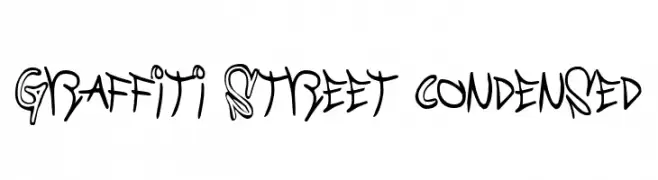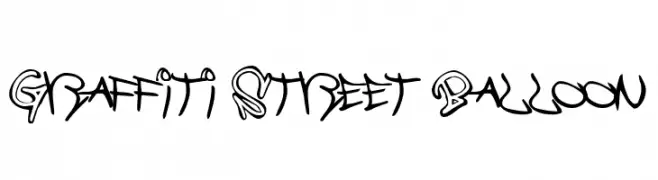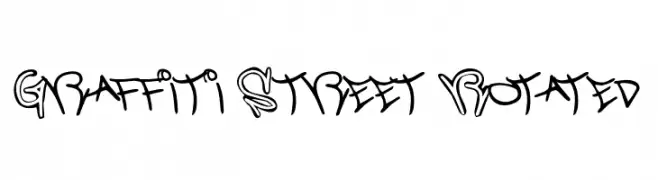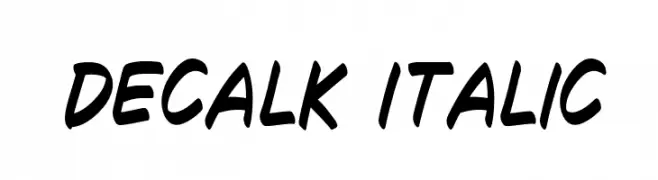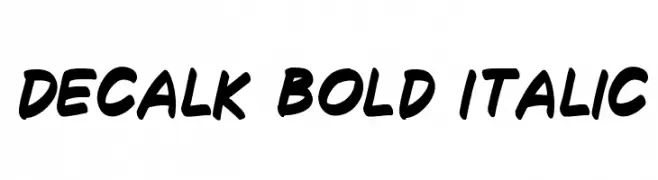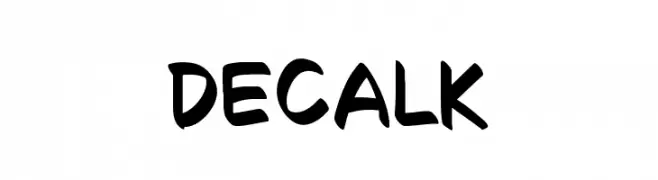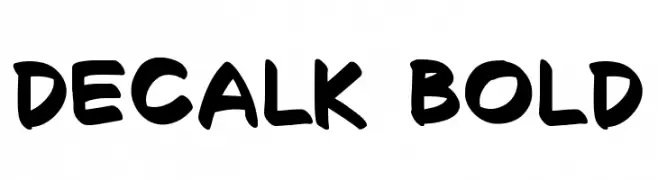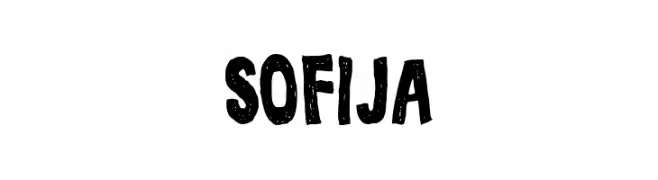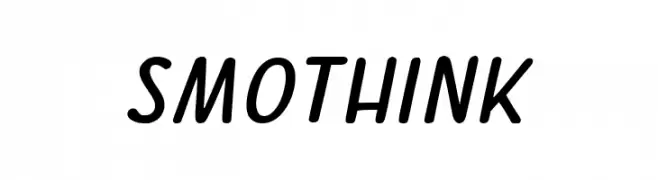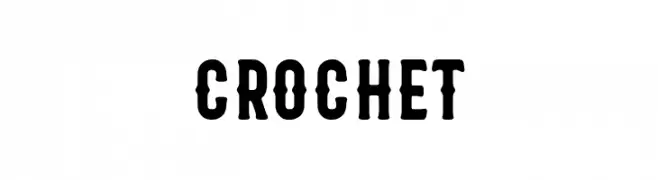
A bold, italicized handwritten font with a dynamic and casual style.
A bold, italicized handwritten font with thick strokes and a dynamic feel.
A playful, bold handwritten font with rounded strokes and an informal style.
A bold, playful font with a hand-drawn, artistic style.
A smooth, rounded font with a slight slant, offering a casual and approachable style.
A bold, blocky font with uniform stroke width, ideal for impactful designs.
A bold, playful handwritten font with thick strokes and a casual style.
A bold, textured font with a playful, hairy appearance.
A playful, bold font with rounded, hand-drawn characters.
A playful, hand-drawn font with rounded, friendly characters.
A bold, playful font with irregular, chunky letterforms and a hand-drawn appearance.
A distressed, hand-drawn font with a rustic and vintage feel.
A rough, hand-drawn font with elongated, narrow letters and an inline style.
A modern dashed inline font with a geometric structure.
A decorative dingbat set with mid-century modern and atomic age motifs.
A bold, dynamic font with thick strokes and slightly condensed letterforms.
An outlined serif font with a bold, vintage-inspired style.
A playful, dotted inline font with a whimsical cartoonish style.
A modern, elegant font with elongated, sharp strokes and high contrast.